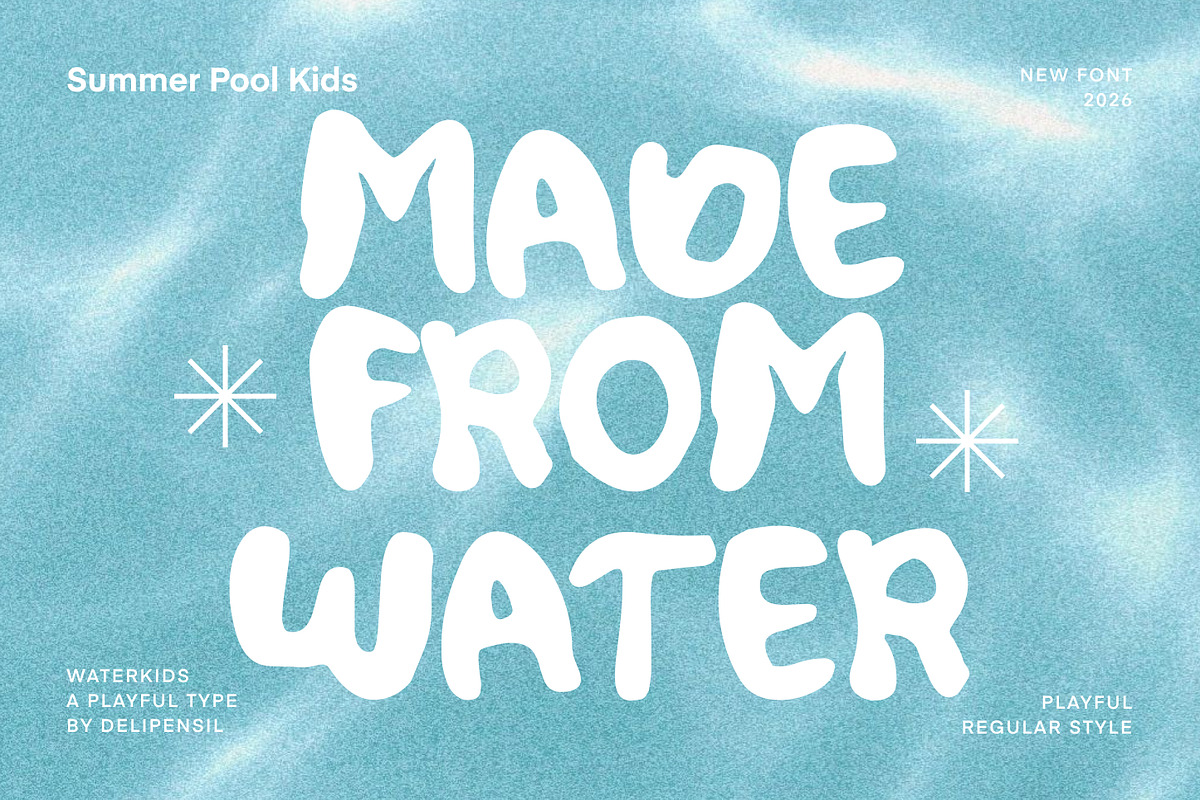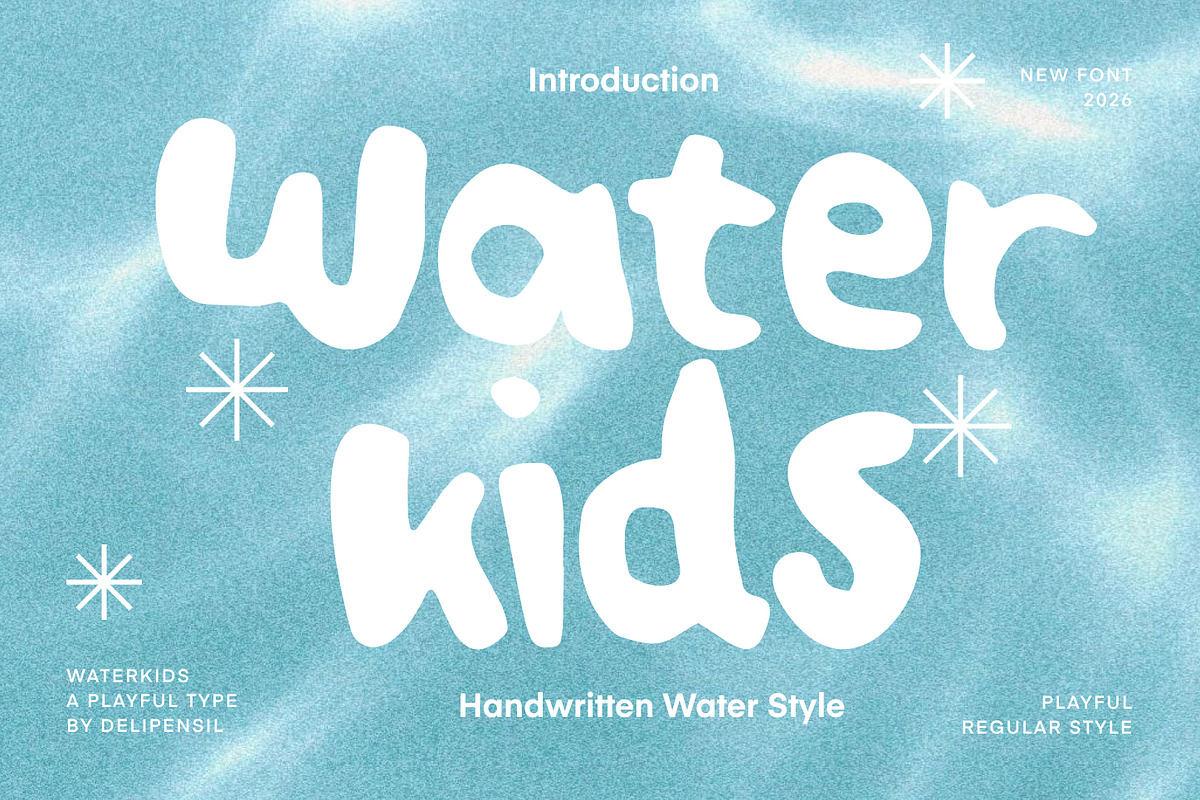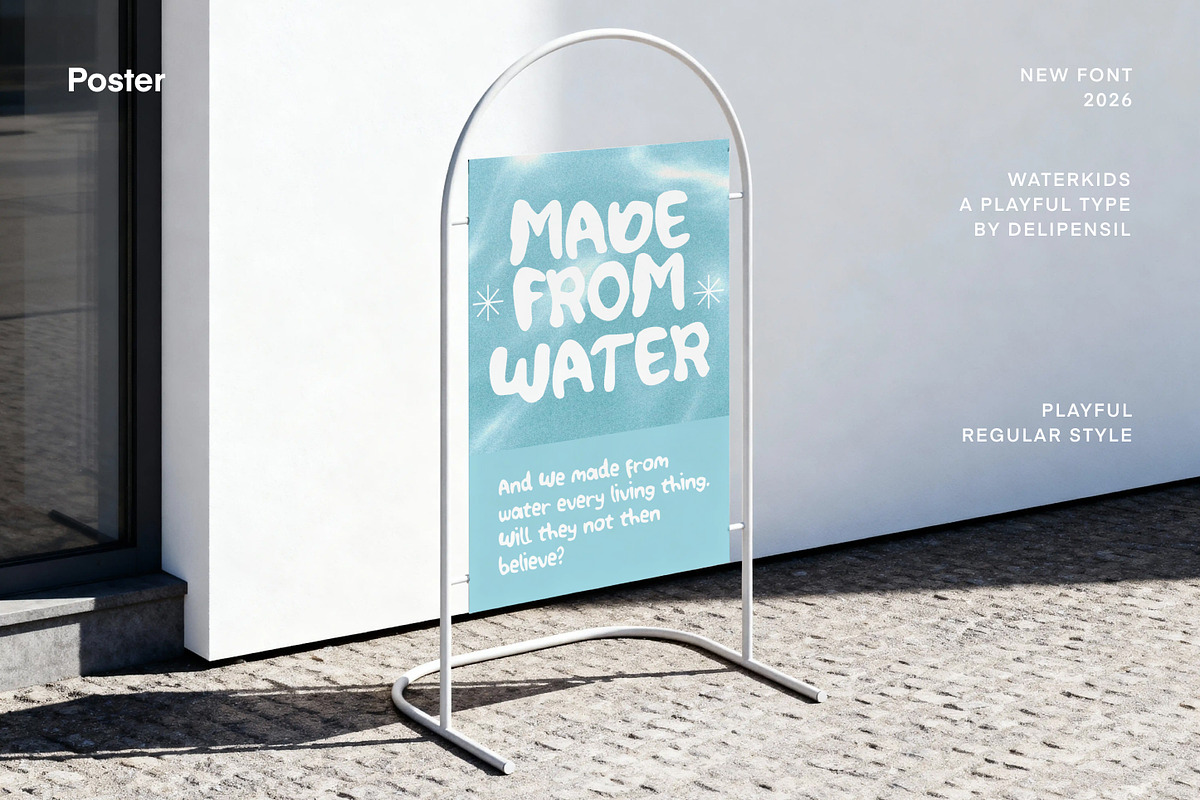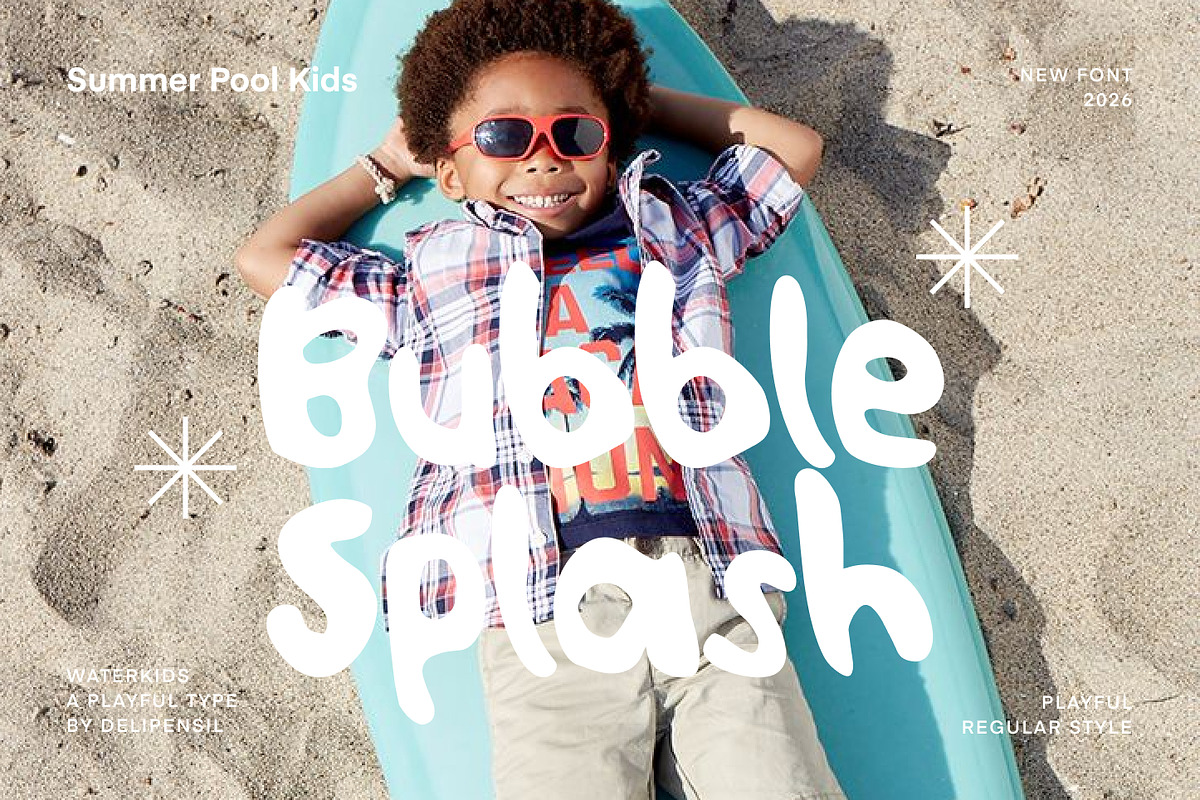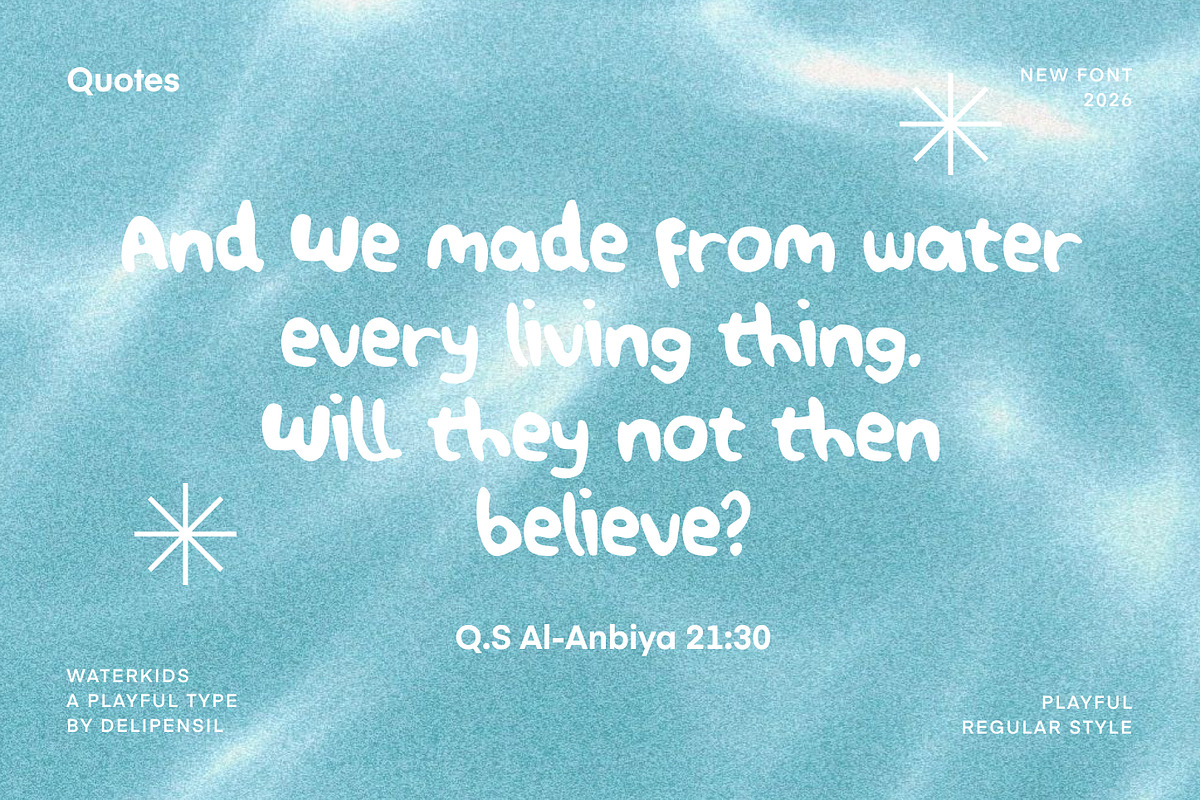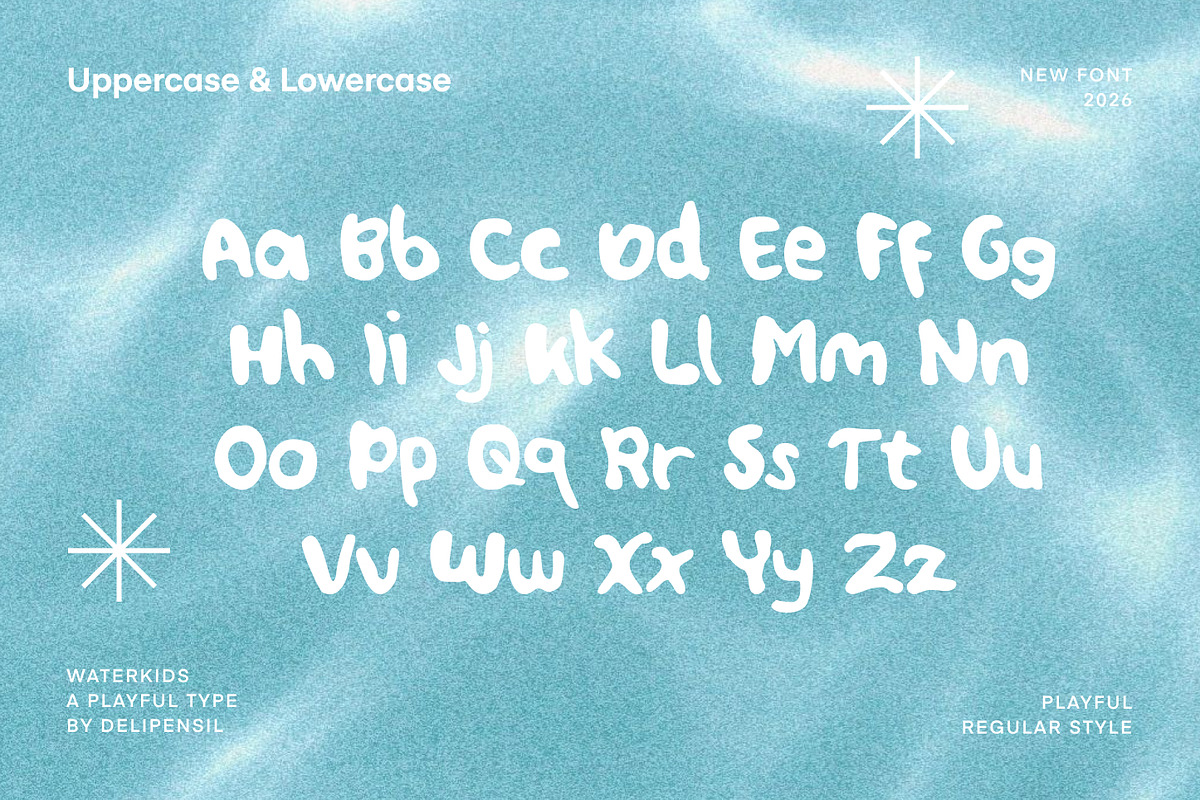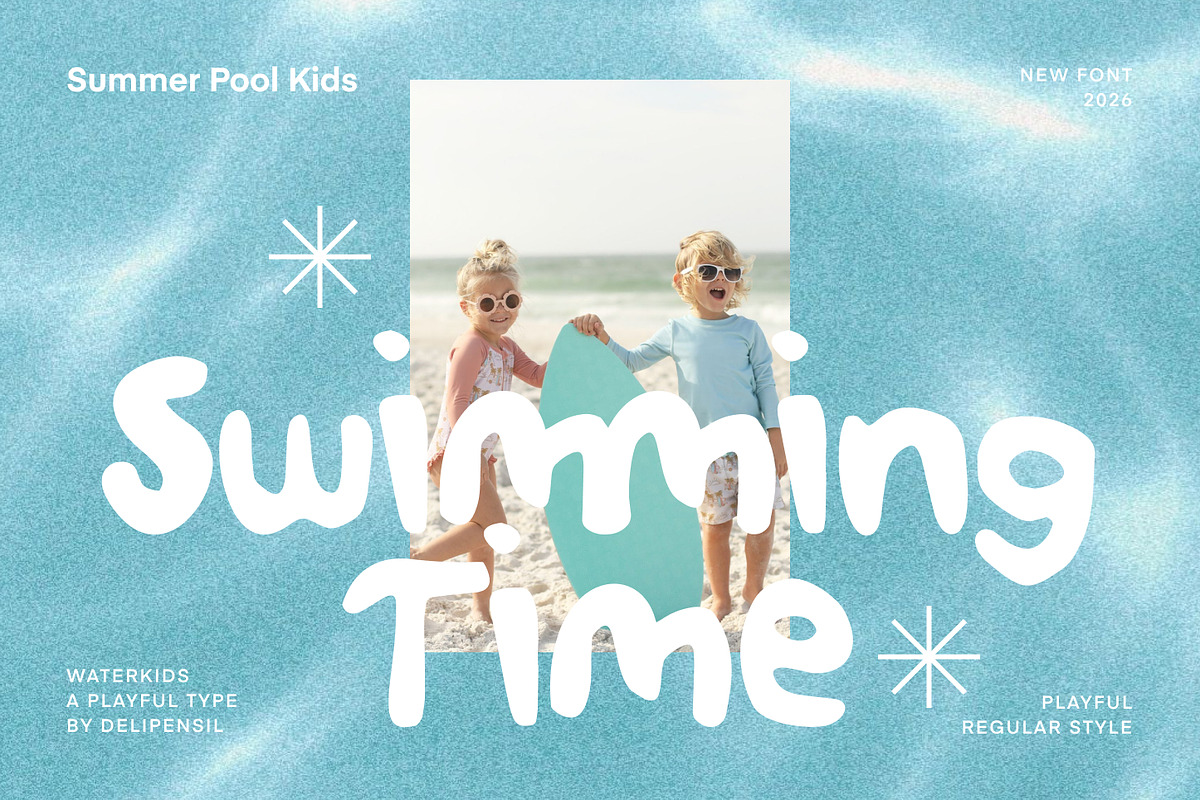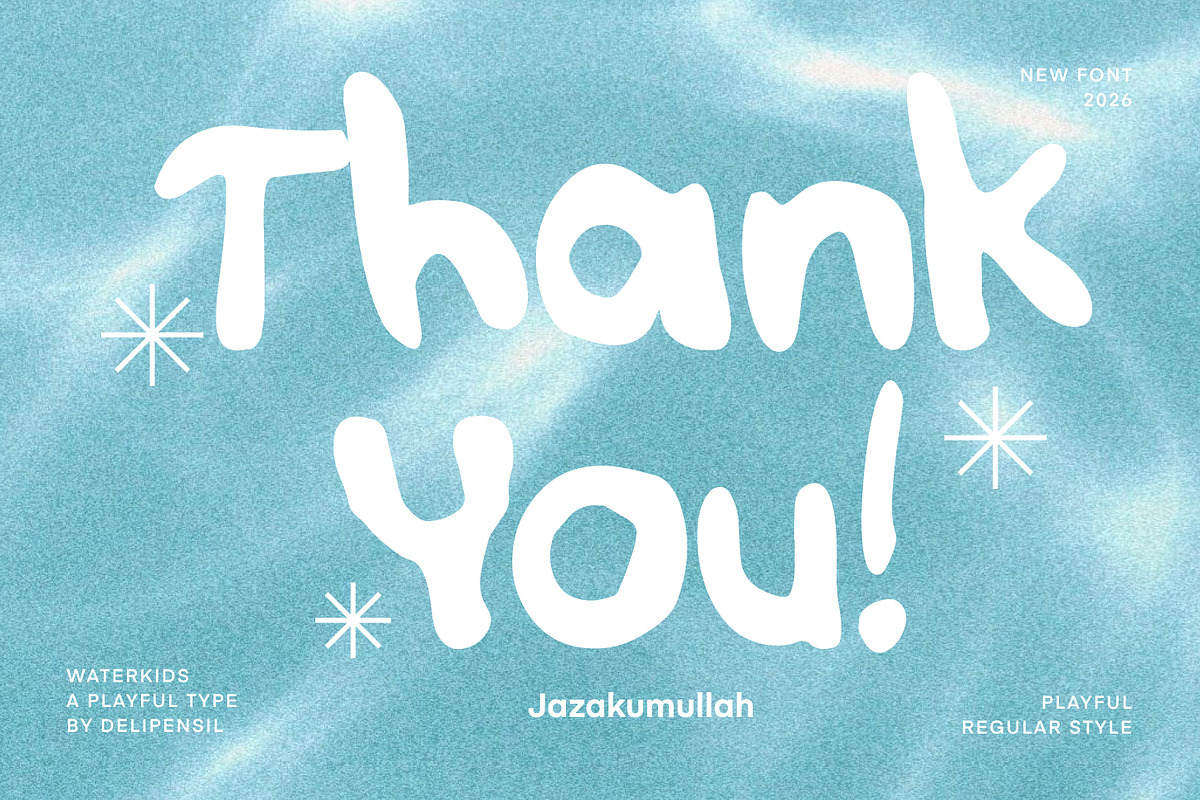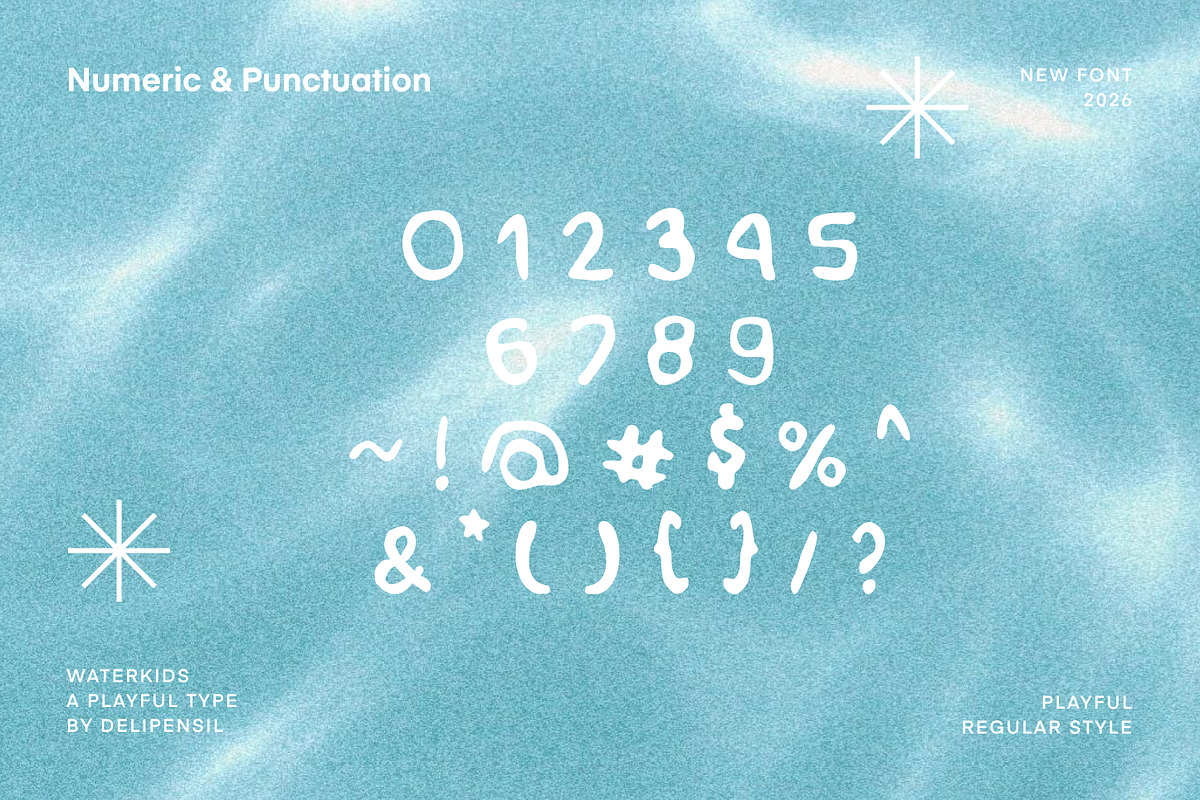
Waterkids - Water Kids style type
Bismillah Introduction Water Kids is a playful handwritten font inspired by children’s creativity, splashing water, and joyful adventures. Its natural strokes and cheerful personality make it perfect for projects that need a fun, friendly, and authentic touch.